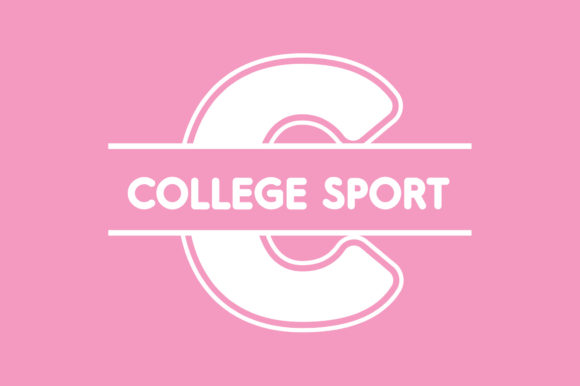
Introducing College Sport Font: The Ultimate Choice for Sporting and Racing Designs
In the world of typography, fonts play a crucial role in conveying the message and tone of a design. When it comes to creating visually appealing and impactful designs for sporting or racing events, the right font can make all the difference. This is where College Sport Font comes in – a bold and thick lettered decorative font that is specifically designed to add a touch of excitement and energy to your designs.
What is College Sport Font?
College Sport Font is a decorative font that features bold and thick letters, making it perfect for creating eye-catching designs for sporting or racing events. Its unique and stylish design makes it an excellent choice for designers, artists, and anyone looking to add a personal touch to their work.
Key Features of College Sport Font
- Bold and Thick Letters: College Sport Font features bold and thick letters that are sure to grab attention.
- Decorative Design: The font has a decorative design that adds a touch of elegance and sophistication to your work.
- Perfect for Sporting and Racing Designs: The font is specifically designed for sporting and racing events, making it an excellent choice for creating posters, flyers, and other promotional materials.
- Endless Variations: With College Sport Font, you can experiment with endless variations to create a unique and personalized design.
Why Choose College Sport Font?
There are several reasons why College Sport Font stands out from the rest. Here are a few:
- Unique Design: The font has a unique and stylish design that is sure to make your work stand out.
- Easy to Read: Despite its bold and thick design, College Sport Font is easy to read, making it perfect for creating posters, flyers, and other promotional materials.
- Versatile: The font can be used for a wide range of designs, from sporting and racing events to fitness and wellness programs.
- High-Quality: College Sport Font is a high-quality font that is designed to deliver exceptional results.
How to Use College Sport Font
Benefits of Using College Sport Font
Using College Sport Font can bring a range of benefits to your designs. Here are a few:
- Grabs Attention: The font’s bold and thick design is sure to grab attention and draw the viewer in.
- Conveys Energy and Excitement: College Sport Font conveys energy and excitement, making it perfect for sporting and racing events.
- Enhances Brand Identity: The font can help to enhance your brand identity and create a consistent visual style.
- Increases Engagement: Using College Sport Font can increase engagement and encourage the viewer to take action.
Common Uses of College Sport Font
College Sport Font can be used for a wide range of designs, including:
- Posters and Flyers: The font is perfect for creating eye-catching posters and flyers for sporting and racing events.
- Logos and Branding: College Sport Font can be used to create logos and branding materials that convey energy and excitement.
- Social Media Graphics: The font can be used to create social media graphics that grab attention and encourage engagement.
- Website Headers: College Sport Font can be used to create website headers that convey a sense of energy and excitement.
Tips and Tricks for Getting the Most Out of College Sport Font
Here are a few tips and tricks for getting the most out of College Sport Font:
- Use it Sparingly: Use College Sport Font sparingly to create a bold and eye-catching design.
- Experiment with Different Colors: Experiment with different colors to find the one that best fits your design.
- Pair with Other Fonts: Pair College Sport Font with other fonts to create a unique and visually appealing design.
- Pay Attention to Kerning: Pay attention to kerning to ensure that the font looks professional and polished.
In conclusion, College Sport Font is a bold and thick lettered decorative font that is perfect for sporting and racing designs. Its unique and stylish design makes it an excellent choice for designers, artists, and anyone looking to add a personal touch to their work. With its endless variations and versatility, College Sport Font is sure to become a favorite among designers and artists.
Final Thoughts
College Sport Font is a high-quality font that is designed to deliver exceptional results. Its bold and thick design conveys energy and excitement, making it perfect for sporting and racing events. Whether you’re a designer, artist, or simply someone looking to add a personal touch to your work, College Sport Font is an excellent choice.